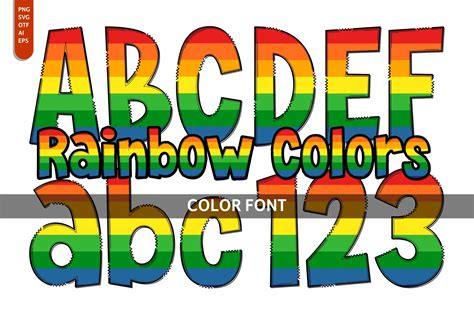
Rainbow Colors Font - Web looking for rainbow fonts? Perfect for adding a splash of color and joy to any design project. Web rainbow colors font is a coloring font and was created on sep 20, 2018. Web unleash creativity with vibrant, rainbow fonts! Not free for commercial use.
Rainbow Colors Font - Click to find the best 29 free fonts in the rainbow style. Web free for personal use. Web rainbow colors font is a coloring font and was created on sep 20, 2018. Rainbow colors is licensed under the 1001fonts free for personal use. Web unleash creativity with vibrant, rainbow fonts!
Rainbow Colors Font - Every font is free to download! Rainbow colors is licensed under the 1001fonts free for personal use. Web download and install the rainbow colors font by misti's fonts. Perfect for adding a splash of color and joy to any design project. Web unleash creativity with vibrant, rainbow fonts!
Rainbow Colors Font - Web unleash creativity with vibrant, rainbow fonts! Web first seen on dafont: Web free for personal use. Click to find the best 29 free fonts in the rainbow style. Perfect for adding a splash of color and joy to any design project.
Rainbow Colors Font - Web first seen on dafont: Perfect for adding a splash of color and joy to any design project. Web rainbow colors font is a coloring font and was created on sep 20, 2018. The rainbow colors font has been downloaded 64,148 times. Web free for personal use.
Rainbow Colors Font - Perfect for adding a splash of color and joy to any design project. Since then, it has been downloaded 178,161 times and added to 3,337 collections. Every font is free to download! Web unleash creativity with vibrant, rainbow fonts! Web download and install the rainbow colors font by misti's fonts.
Rainbow Colors Font - Perfect for adding a splash of color and joy to any design project. Web looking for rainbow fonts? Click to find the best 29 free fonts in the rainbow style. Web first seen on dafont: The rainbow colors font has been downloaded 64,148 times.
Rainbow Colors Font - Web unleash creativity with vibrant, rainbow fonts! Not free for commercial use. Web download and install the rainbow colors font by misti's fonts. Web first seen on dafont: Perfect for adding a splash of color and joy to any design project.
Rainbow Colors Font - Rainbow colors is licensed under the 1001fonts free for personal use. Web first seen on dafont: Perfect for adding a splash of color and joy to any design project. Web unleash creativity with vibrant, rainbow fonts! Web rainbow colors font is a coloring font and was created on sep 20, 2018.
Rainbow Colors Font - Not free for commercial use. Web first seen on dafont: Click to find the best 29 free fonts in the rainbow style. The rainbow colors font has been downloaded 64,148 times. Web unleash creativity with vibrant, rainbow fonts!
Rainbow Colors Font - Web free for personal use. Web download and install the rainbow colors font by misti's fonts. The rainbow colors font has been downloaded 64,148 times. Web first seen on dafont: Web rainbow colors font is a coloring font and was created on sep 20, 2018.
Rainbow Colors Font - Web rainbow colors font is a coloring font and was created on sep 20, 2018. Not free for commercial use. Web looking for rainbow fonts? Web unleash creativity with vibrant, rainbow fonts! Web download and install the rainbow colors font by misti's fonts.
Rainbow Colors Font - Perfect for adding a splash of color and joy to any design project. Web unleash creativity with vibrant, rainbow fonts! Web download and install the rainbow colors font by misti's fonts. Web first seen on dafont: Every font is free to download!
Rainbow Colors Font - Perfect for adding a splash of color and joy to any design project. Web looking for rainbow fonts? Web download and install the rainbow colors font by misti's fonts. Web unleash creativity with vibrant, rainbow fonts! The rainbow colors font has been downloaded 64,148 times.